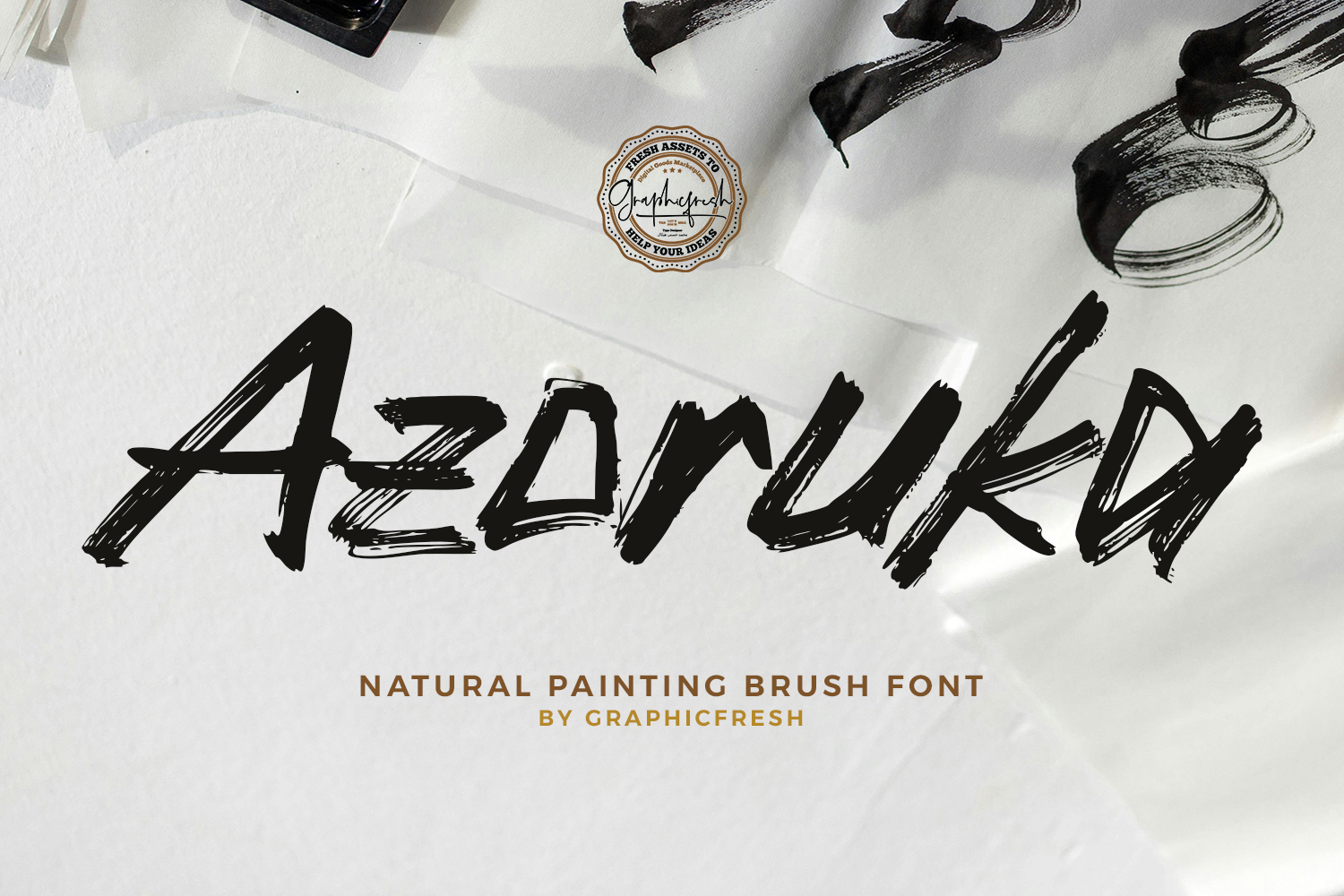
Azoruka - Natural Painting Brush Font
Azoruka is a natural painting brush font inspired by the expressive movement of real paintbrush strokes. Designed with organic textures and fluid brush flow, this font captures the authentic feel of hand-painted lettering. Its lively forms and natural imperfections create a dynamic and artistic personality while maintaining strong readability.